As a designer with a serious case of Christmas spirit, I can’t help but get giddy when it’s time to dust off those magical Christmas fonts. There’s something absolutely enchanting about the way the right Christmas typography can transform ordinary designs into winter wonderlands that make viewers feel like they’re stepping into a snow globe.
Whether you’re designing holiday cards, party invitations, social media posts, or packaging for that perfect Christmas gift, the font you choose sets the entire mood. From elegant script fonts that whisper of cozy fireside moments to bold, playful fonts that shout “Ho ho ho!” from the rooftops, Christmas fonts have the power to make your designs feel as magical as Christmas morning itself.
In this comprehensive guide, I’ll unwrap the secrets behind choosing the perfect Christmas fonts, showcase the most festive typefaces of 2026, and help you create designs that’ll make Santa himself want to add them to his nice list. So grab your hot cocoa, queue up those holiday tunes, and let’s dive into the wonderful world of Christmas typography!
The Most Festive Christmas Fonts of 2026
Not all Christmas fonts are created equal, folks. Some manage to capture that perfect balance of holiday magic without looking like they’ve been dunked in a vat of glitter. Here are my absolute favorites for 2026:
Christmas
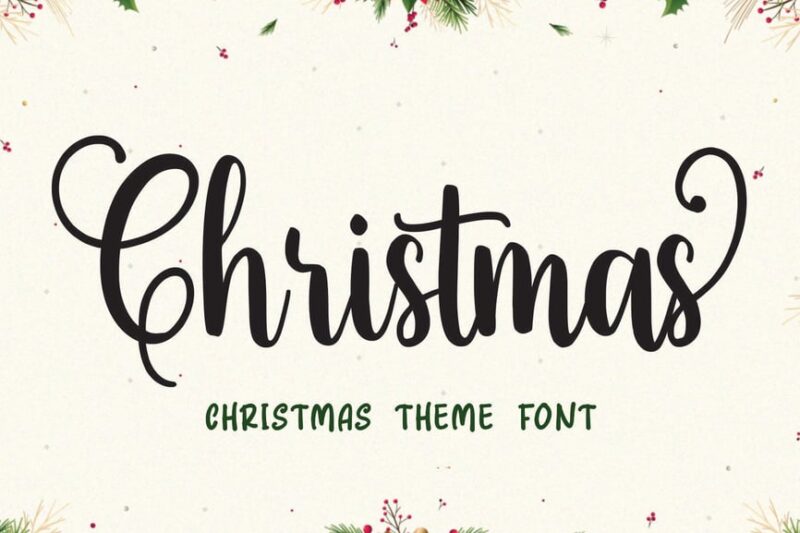
This script and handwritten font embodies the festive spirit of Christmas. It features playful letterforms with a whimsical touch, perfect for creating merry and cheerful holiday designs.
Christmas Cove
Christmas Cove is a decorative serif font with a touch of holiday magic. Its intricate details and symbolic elements make it ideal for creating wonderful and festive designs for the holiday season.
Christmas Mozart
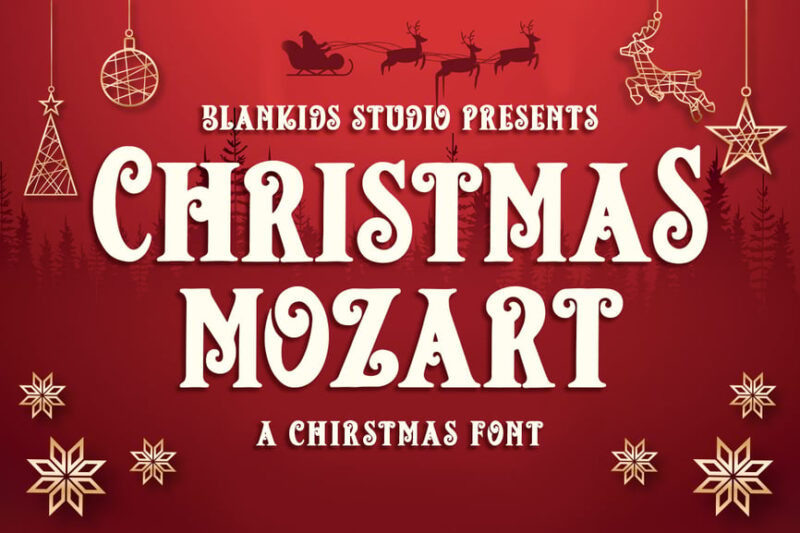
This Christmas serif font combines elegance with festive charm. Its refined letterforms and subtle holiday touches make it versatile for both Christmas and New Year’s designs, offering a sophisticated seasonal aesthetic.
Christmas Lovers
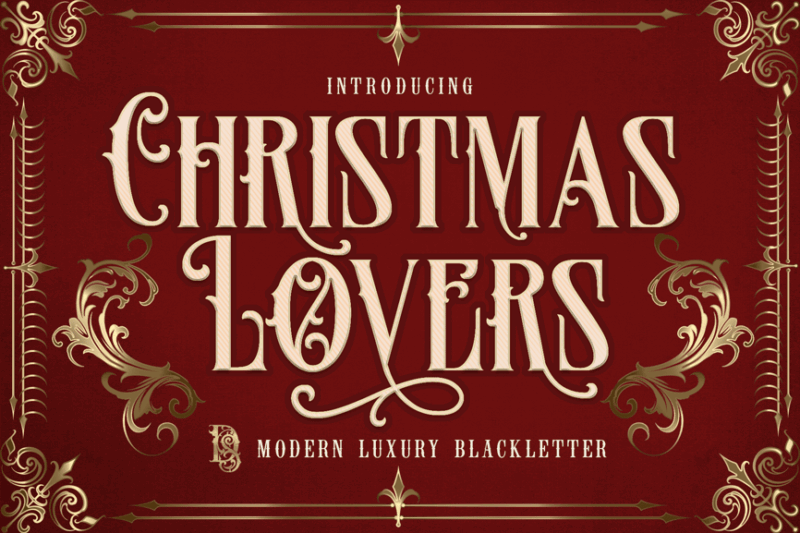
Christmas Lovers is a bold serif font with a blackletter twist. Its dramatic strokes and decorative elements create a powerful and festive impression, perfect for eye-catching holiday designs.
Christmas – Christmas Cheers
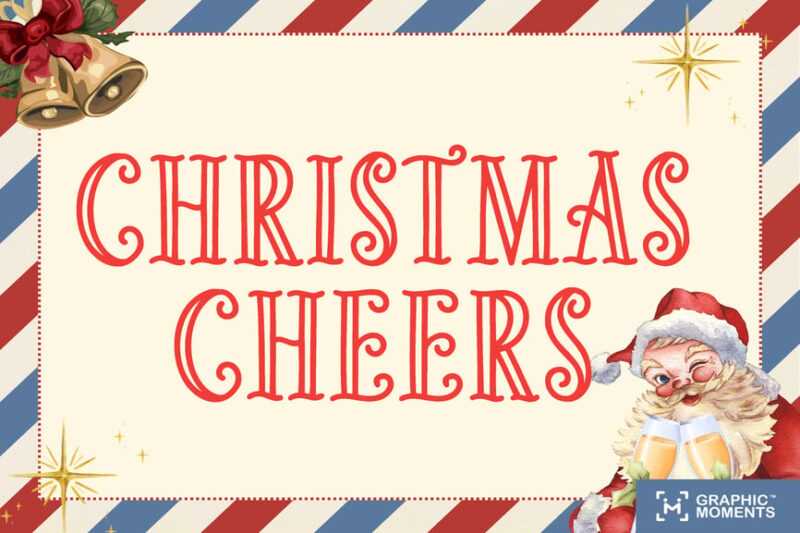
This serif font radiates Christmas cheer with its jolly letterforms. It captures the warmth and joy of the winter season, making it ideal for creating inviting holiday greetings and designs.
Last Christmas Wishes
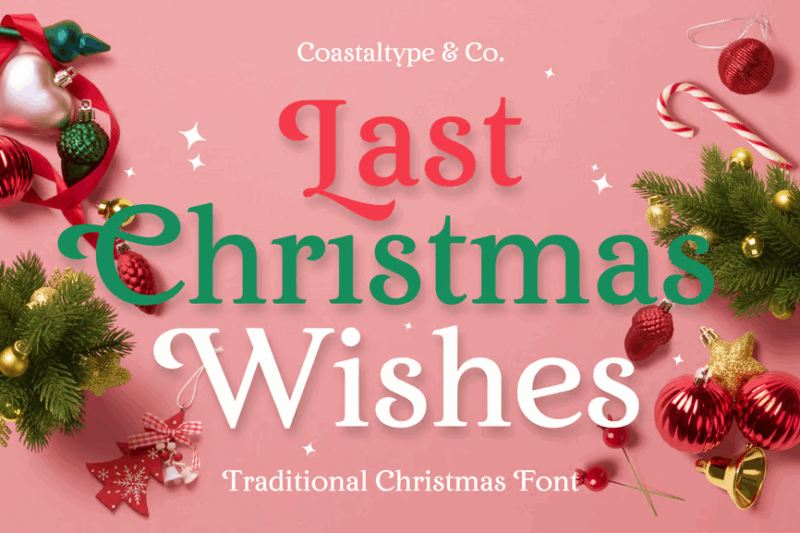
Last Christmas Wishes is a joyful serif font that embodies the spirit of the season. Its playful and cheerful character makes it perfect for expressing heartfelt holiday wishes and creating festive designs.
Christmas Elegant
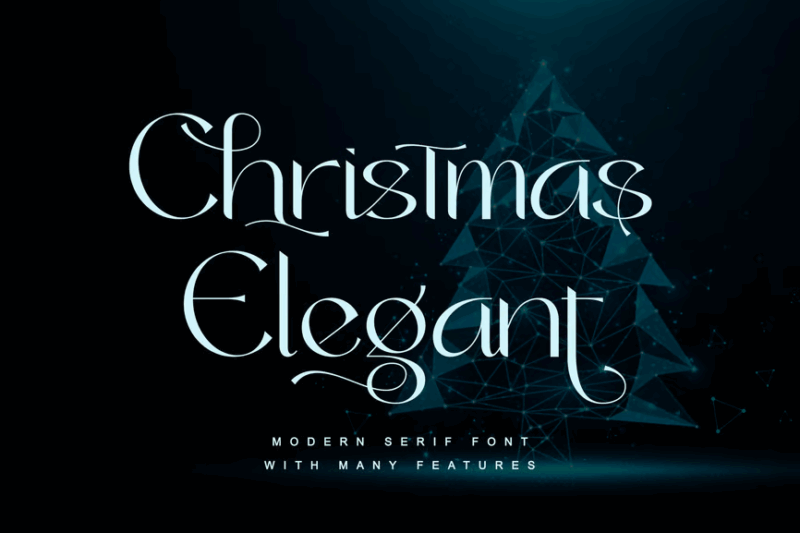
This sophisticated serif font brings elegance to Christmas designs. Its refined letterforms and subtle holiday touches make it ideal for creating classy posters and upscale seasonal branding.
Christmas
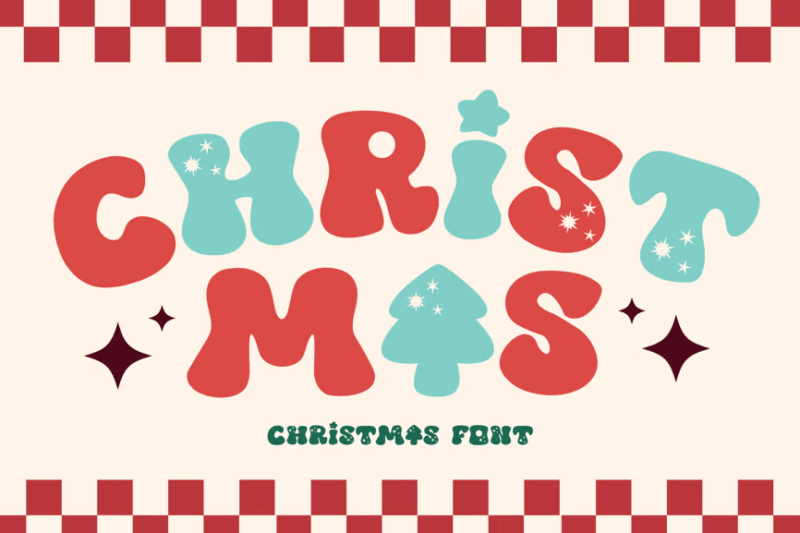
This decorative font captures the essence of Christmas with its festive design. Its ornate letterforms and holiday-inspired elements make it perfect for creating eye-catching seasonal graphics and typography.
Christmas Chances
Christmas Chances is a decorative display font that brings a playful touch to holiday designs. Its whimsical letterforms and festive elements make it ideal for creating fun and engaging Christmas-themed graphics.
Christmas Romantiko
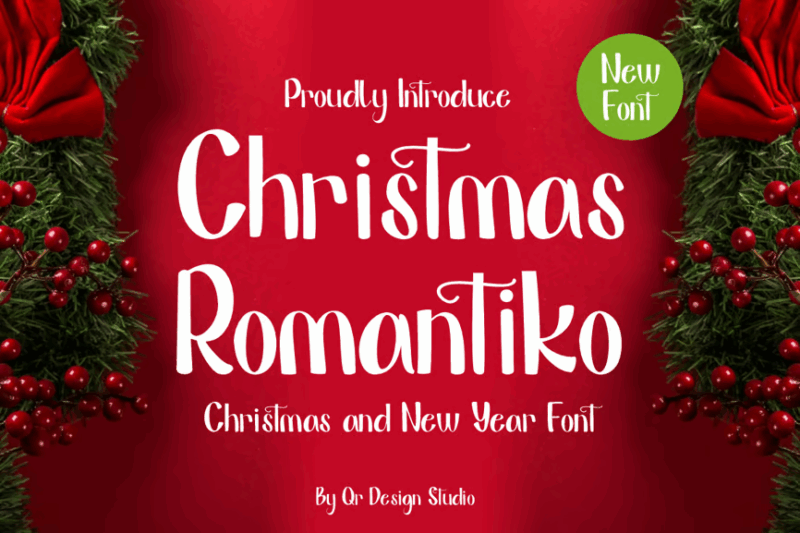
This script font adds a romantic and elegant touch to Christmas designs. Its flowing letterforms and delicate details make it perfect for creating dreamy and merry holiday greetings and invitations.
Christmas Frosty
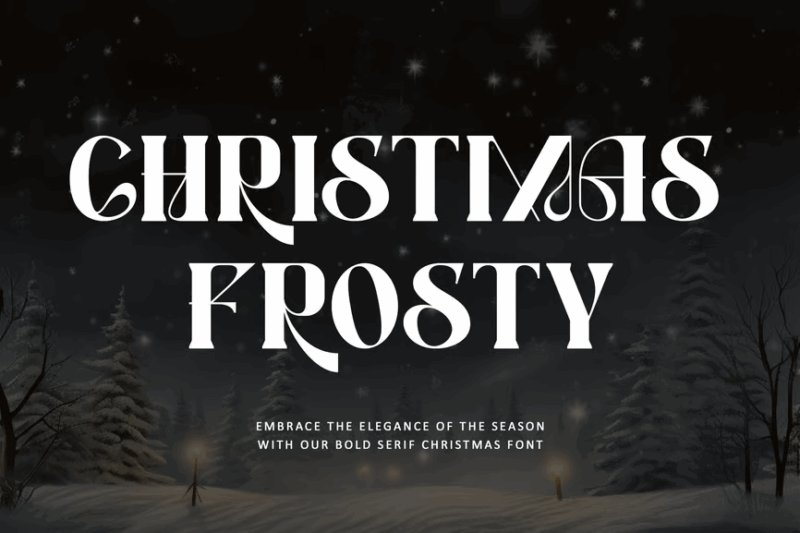
Christmas Frosty is a decorative serif font that embodies the crisp winter atmosphere. Its icy details and festive elements make it ideal for creating frosty and cheerful holiday designs.
Welcome Christmas
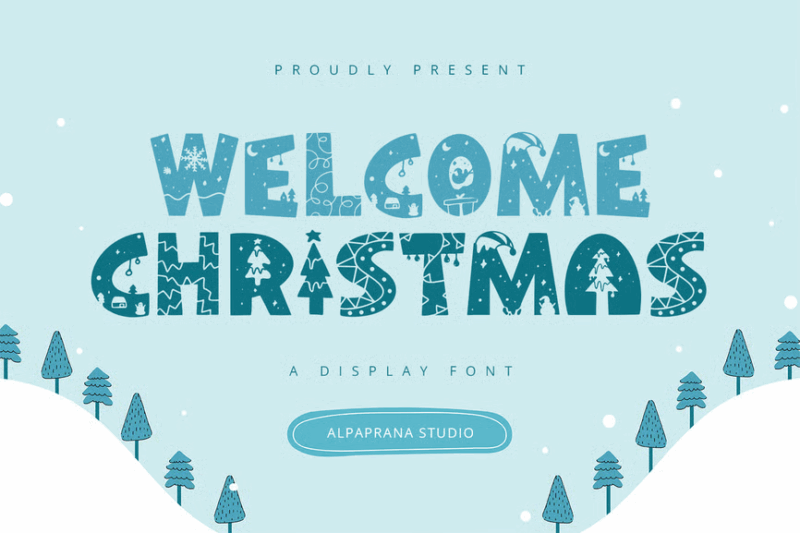
This font combines decorative and script styles to create a warm holiday welcome. Its mix of serif and handwritten elements makes it versatile for various Christmas design projects, from cards to banners.
Merry Christmas
This script font captures the joyous spirit of Christmas with its flowing letterforms. Its playful and elegant design makes it perfect for creating heartfelt holiday greetings and festive typography.
Christmas Comeback
Christmas Comeback is a bold serif font that brings a fresh twist to holiday typography. Its strong letterforms and festive touches make it ideal for creating impactful Christmas designs with a modern edge.
As we head into 2026, Christmas typography continues to evolve, blending classic holiday charm with contemporary design trends. The fonts showcased in this guide represent the best of both worlds – they honor Christmas traditions while feeling fresh and current.
So go forth and spread some typographic Christmas cheer! Whether you’re designing for Santa’s workshop or Fortune 500 companies, these Christmas fonts will help you create designs that truly capture the magic of the season. After all, the right font choice can make even the Grinch’s heart grow three sizes.